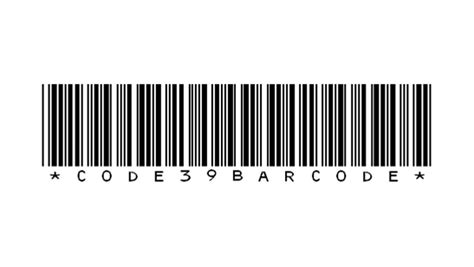
Code 39 Barcode Fonts: A Simple Guide
Alright guys, let’s dive into the awesome world of Code 39 barcode fonts ! If you’ve ever wondered how those scannable lines magically store information, you’re in the right place. We’re going to break down what Code 39 is, why these fonts are super useful, and how you can easily implement them in your projects. Think of this as your go-to guide for making your own barcodes without needing fancy, expensive equipment. We’ll cover everything from the basics to practical tips, so stick around!
Understanding Code 39 Barcodes: The Basics
So, what exactly is Code 39 barcode ? Imagine you need a way to represent letters, numbers, and a few special characters using just a barcode. That’s precisely what Code 39 does! It’s one of the oldest and most widely used barcode symbologies out there, and for good reason. It’s simple, robust, and incredibly versatile . Unlike some fancier barcodes that require complex scanners, Code 39 can often be read by even basic laser scanners. The ‘39’ in its name comes from the fact that it can encode 39 distinct characters: the uppercase alphabet (A-Z), the numbers (0-9), and seven special characters: - , . , $ , / , + , % , and a space. Oh, and it also includes a start and stop character, which is crucial for scanners to know where the barcode begins and ends. This character is typically an asterisk (*). Pretty neat, huh? It’s a discrete barcode , meaning each character is encoded independently, and there are no gaps between them. This makes it super efficient and easy to read.
The structure of a Code 39 barcode is quite straightforward. Each character is represented by a unique pattern of wide and narrow bars and spaces. Specifically, each character consists of nine elements: seven bars and two spaces. Of these nine elements, three must be wide and the rest narrow. This consistent structure makes it relatively easy for scanners to interpret the data, even if the barcode is slightly distorted or printed at an angle. It’s also a bi-directional barcode , meaning the scanner can read it from left to right or right to left. The start and stop characters are identical, usually an asterisk, acting as unambiguous signals for the scanning device. This simplicity is a huge part of its enduring popularity, especially in industries where ease of use and reliability are paramount. We’re talking about inventory management, asset tracking, and even some labeling applications. Its ability to encode alphanumeric data makes it a solid choice for a wide range of identification needs. You don’t need to be a tech wizard to get it working, which is a massive win for many businesses and individuals alike.
Why Use Code 39 Barcode Fonts?
Now, you might be asking, “Why bother with barcode fonts when I could use specialized software?” Great question! The beauty of using Code 39 barcode fonts is their sheer simplicity and accessibility . Imagine you’re working in a document, maybe a spreadsheet or a word processing file, and you need to add a barcode to identify an item. Instead of exporting data, importing it into a barcode generator, and then importing the image back, you can simply change the font of your text to a Code 39 barcode font ! It’s like magic. This dramatically speeds up your workflow, especially for smaller batches or when you’re creating labels on the fly. You can type out your data (like “ITEM123”) and then apply the font, and boom – you’ve got a scannable barcode right there in your document. It’s incredibly convenient for things like internal tracking, personal inventory, or even simple project management where you need a quick and dirty way to add scannability.
Furthermore, font-based barcode generation is often cost-effective . Many high-quality Code 39 barcode fonts are available for free or at a very low cost. This makes it an attractive option for startups, small businesses, or individuals working with tight budgets. You don’t need to invest in expensive barcode printing software or hardware. All you need is the font file and a compatible application (like Microsoft Word, Excel, Google Docs, or even certain databases). This accessibility democratizes the use of barcodes, allowing more people to benefit from automated data capture. Think about labeling files in an archive, organizing a personal library, or creating custom shipping labels for a small online store. The ability to generate these codes directly within your existing software environment is a game-changer. It streamlines the process, reduces the learning curve, and integrates seamlessly into everyday tasks. It’s all about making technology work for you , easily and efficiently.
How to Implement Code 39 Barcode Fonts
After installation, open your desired application – whether it’s Microsoft Word, Excel, Adobe InDesign, or even a simple text editor. Now, here’s the crucial part: when you type the data you want to encode, you need to prefix and suffix it with an asterisk (*) . So, if you want to encode “PRODUCT A”, you’ll type *PRODUCT A* . This asterisk is the start and stop character that tells the scanner where the barcode begins and ends. Once your data is typed with the asterisks, simply select the text and apply the Code 39 font you just installed. You should see the text transform into a scannable barcode! For best results, ensure the font size is large enough and that there’s sufficient white space (quiet zones) around the barcode for the scanner to read it accurately. It’s also a good idea to test your generated barcodes with a scanner or a barcode scanner app on your phone to ensure they are readable. Sometimes, adjusting the font size or the tracking (spacing between characters) might be necessary for optimal scan performance. Remember, the barcode must be printed clearly and at a sufficient size to be reliably scanned.
Choosing the Right Code 39 Font for Your Needs
When you’re on the hunt for a Code 39 barcode font , it’s not a one-size-fits-all situation. You’ll want to consider a few factors to make sure you pick the best one for your specific project, guys. First off, check the character set support . While standard Code 39 handles alphanumeric characters and a few symbols, some fonts might offer extensions like Code 39 Extended (Full ASCII), which can encode all 128 ASCII characters by using combinations of two standard characters. If you need to encode lowercase letters or more symbols, you’ll want a font that supports this extension. Always read the font’s documentation to understand its capabilities.
Another key consideration is licensing . Many fonts are free for personal or non-commercial use, but using them for business purposes might require a commercial license. Always double-check the license agreement before using a font in a product or for widespread distribution. For professional applications, investing in a commercially licensed font from a reputable provider like IDAutomation, TBarCode, or TEC-IT often ensures better support, higher quality, and legal compliance. These commercial fonts usually come with guarantees of accuracy and readability, which can be crucial for critical business operations. They also often provide additional features or variations, like different bar widths or specific quiet zone requirements, to meet industry standards. Don’t underestimate the importance of a clear, well-formed barcode; it’s the backbone of your data capture system!
Finally, test, test, test! What looks good on screen might not scan perfectly. Different applications, printers, and even screen resolutions can affect how the barcode renders. Always print a sample and test it with the scanner you intend to use. Look for fonts that explicitly mention good scanability or have received positive reviews from users. Some fonts might render bars that are too thin or too thick, or the spacing might be off, leading to read errors. Seek out fonts that are known for their clarity and adherence to barcode standards. Remember, the goal is to create a barcode that is not just visually present but functionally reliable. Choosing a font that is specifically designed for barcode generation, rather than just a standard font with a barcode appearance, will usually yield the best results. Pay attention to reviews and look for fonts that explicitly state they are designed for scannability and meet industry standards for Code 39. This diligence will save you headaches down the line!
In conclusion , Code 39 barcode fonts offer a fantastic, user-friendly solution for generating scannable codes directly within your documents. By understanding the basics, choosing the right font, implementing it correctly (don’t forget those asterisks!), and troubleshooting common issues, you can easily add powerful identification capabilities to your projects. So go ahead, give them a try, and unlock the potential of simple, efficient barcode generation! Happy scanning!